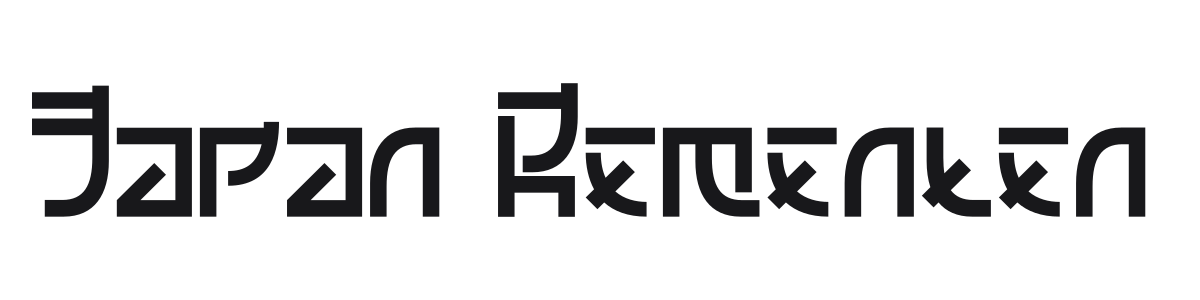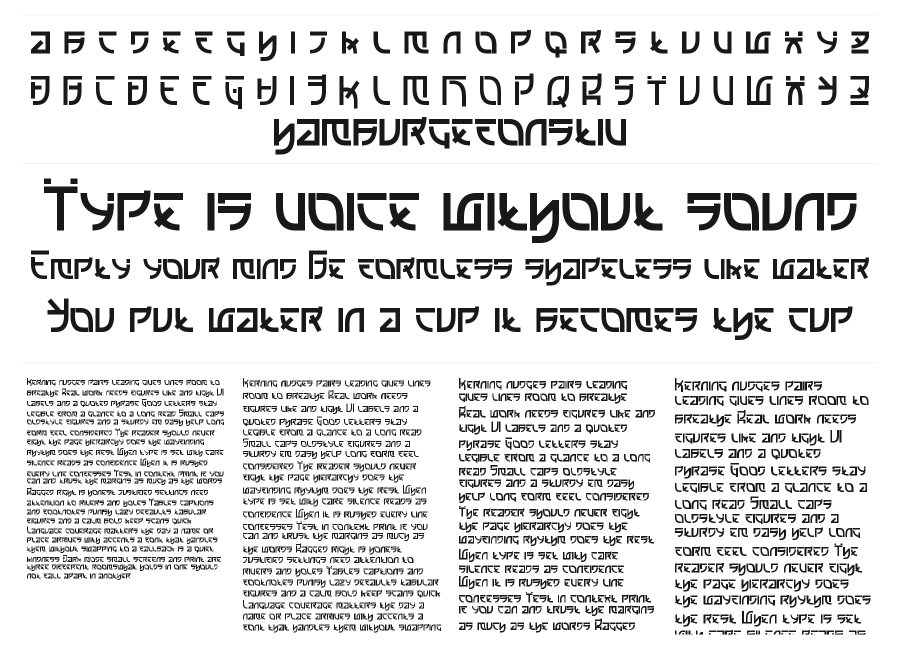
Japan Rementen
Japan Rementen is a Latin display font that translates the visual logic of Japanese script into bold, angular Western characters. Sharp diagonal cuts and segmented strokes turn each letter into something that reads both as familiar Latin and as an echo of katakana. It hits hard at large sizes for restaurant branding, music packaging, and anything that wants an East Asian cultural edge.